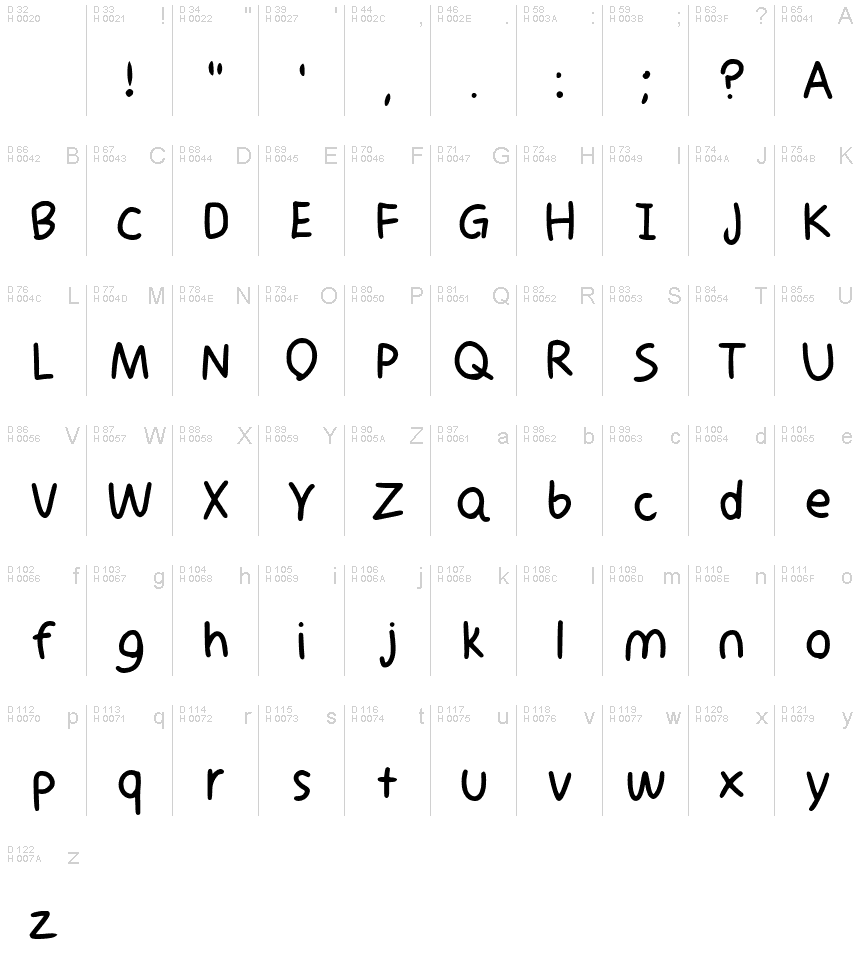
Santiago Regular
Santiago, a charming handwritten font designed by TheSanty Lolx, is sure to add a touch of elegance to your projects. With its semi-light weight and soft curves, this font exudes sophistication while maintaining a playful feel. Its versatility makes it suitable for a wide range of projects - from wedding invitations and branding materials to blog headers and social media graphics. Santiago's unique style is perfect for conveying a personal touch and adding character to any design. Give your next project an extra level of charm with Santiago!